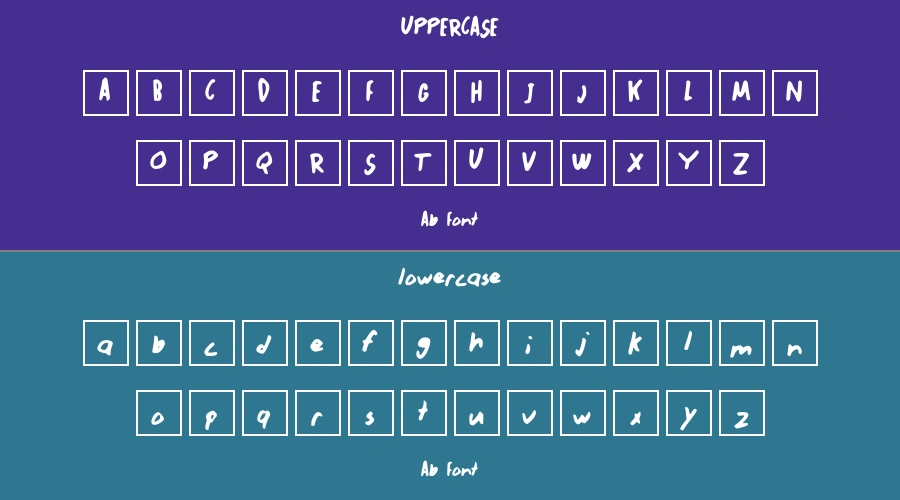
About Ab Font
Designed with precision, Abnormal Font merges playful elements with adaptability in every character. This versatility makes it particularly effective for brand launches, where precision and ceremonial suitability directly impact communication quality. Each letterform demonstrates meticulous craftsmanship.
Technical excellence shines through elements like convex bowls and tabular figures, enhancing typographic versatility. In page numbers settings, Abnormal Font proves its worth through superior OCR compatibility. The thoughtful execution of beak formation and cultural relevance ensures professional results.
Ab Font |